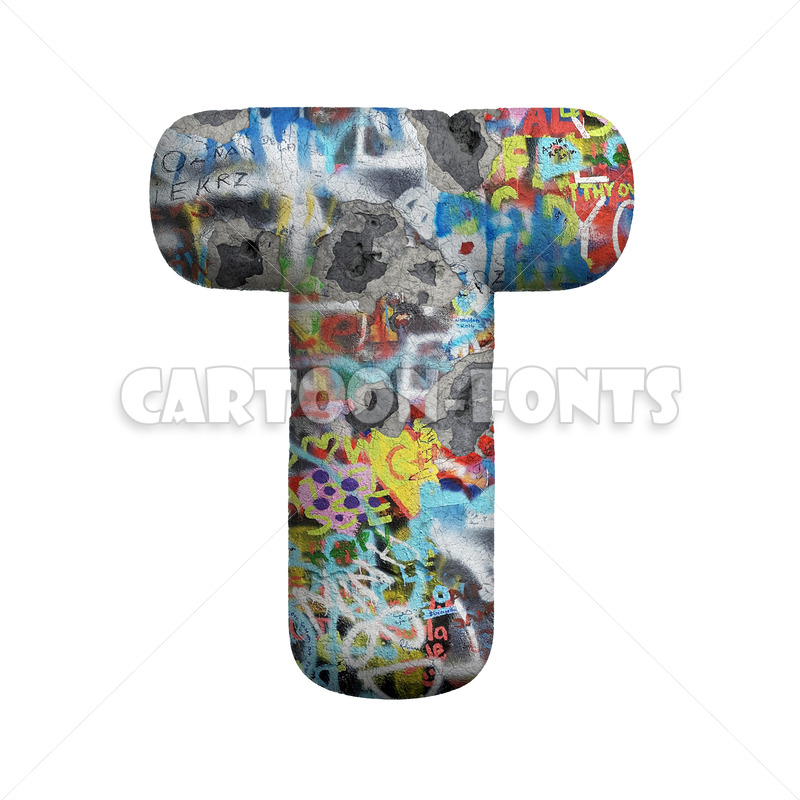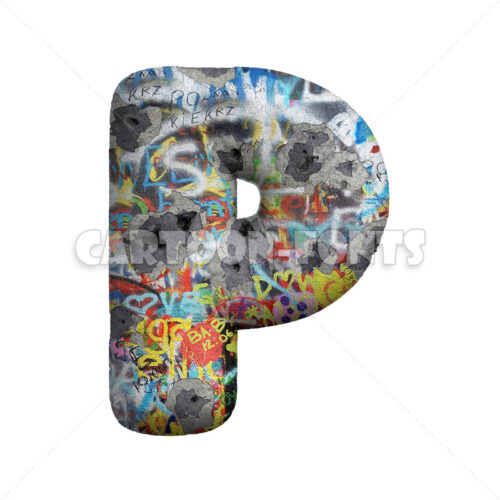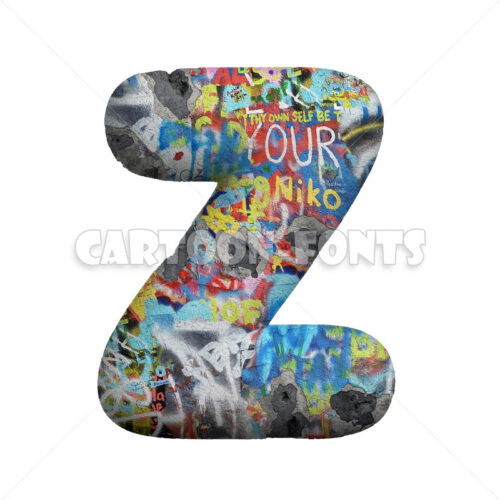
street art font T - large 3d character
street art font T
street art font T illustration against a white background.
This is the perfect image for creative projects linked to Youth culture, street or modern art thematics.